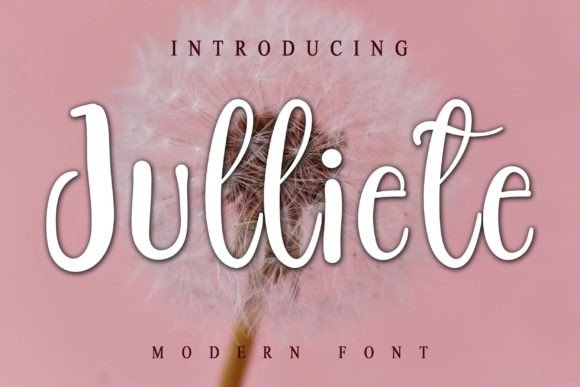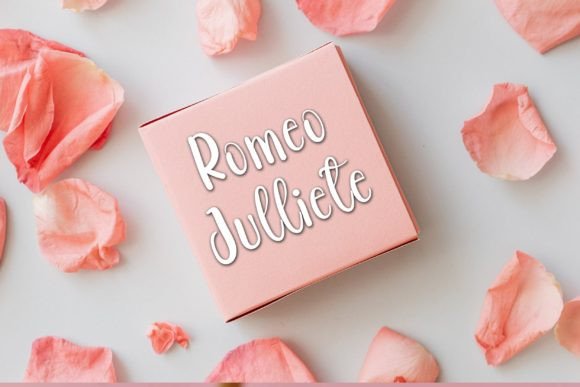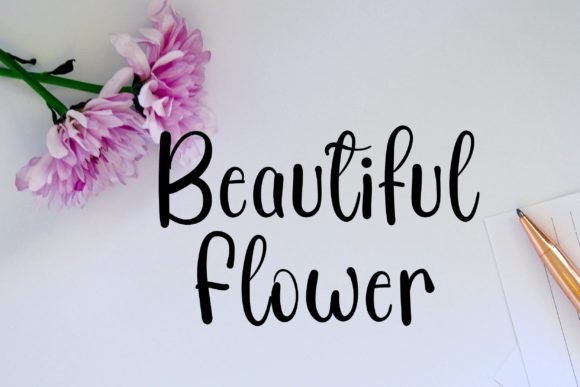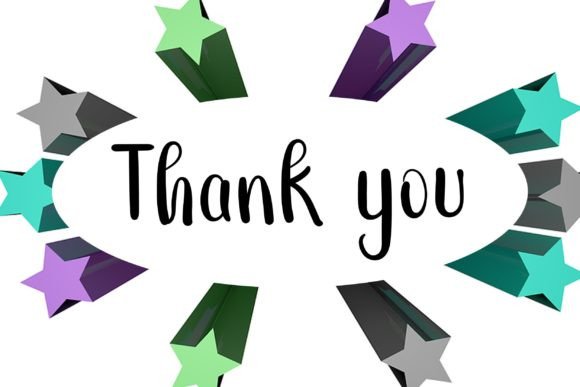
About Julliete Font
“Julliete” is a font that brings a sense of freshness and beauty to your design projects. Tailored for various purposes, including YouTube banners, cover logo mockups, wedding invitations, ID cards, flyers, and crafts, it stands as a versatile tool to enhance the visual allure of your creations. Utilizing “Julliete” in your designs not only adds aesthetic value but also positions your business for progress and development.
The font’s fresh and beautiful aesthetic makes it adaptable to different design contexts. From the dynamic and engaging atmosphere of YouTube banners to the sophisticated elegance needed for wedding invitations, “Julliete” proves to be a versatile choice. Its application extends to professional settings like ID cards and eye-catching promotional materials such as flyers and crafts.
The simplicity and uniqueness of “Julliete” are key attributes that contribute to its appeal. In the realm of design, where clarity and distinctiveness are crucial, this font offers a straightforward yet captivating visual language. It becomes a signature element in your designs, ensuring that your branding and promotional materials are easily recognizable and memorable.
Beyond its visual appeal, “Julliete” is positioned as more than just a font; it’s a catalyst for business growth. The statement that using this font will lead to progress and development underscores its potential impact on your brand identity and overall business success. Its simplicity ensures that your message is conveyed clearly, and its uniqueness sets your designs apart from the ordinary.
As you integrate “Julliete” into your design projects, envision the positive transformations it can bring to your business. Let it be the choice that not only adds a touch of beauty to your designs but also propels your brand forward, making a lasting impression on your audience. “Julliete” is your ally in the creative journey, offering a blend of simplicity, uniqueness, and potential for business development.